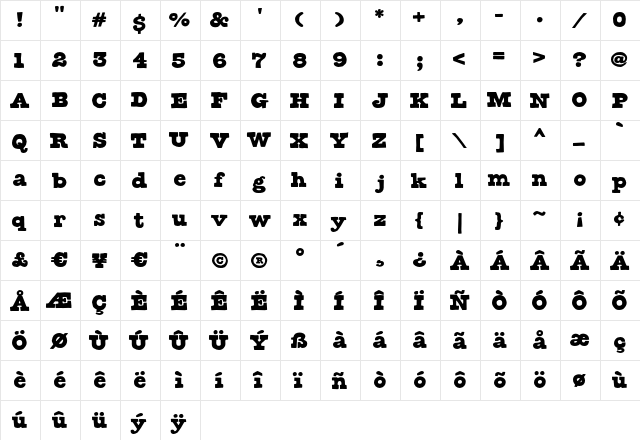
CornDog Regular
| Foundry | Fonthead Design Inc. |
| Designer | Ethan Dunham |
Design Context for CornDog Typeface
CornDog takes a measured approach to typography — its balanced proportions and neutral character make it a reliable workhorse for both digital and print work.